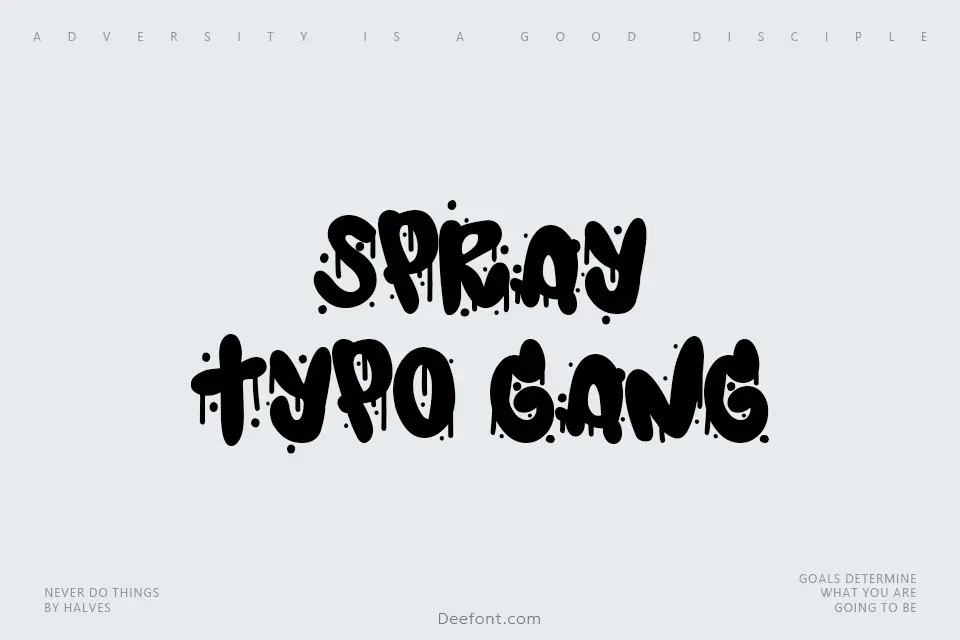
Spray Typo Gang Font
Spray Typo Gang is a bold graffiti display font featuring thick, rounded strokes with paint-drip splatters and blobby edges that deliver an urban street art aesthetic. The typeface shines on event flyers, album covers, skate and streetwear branding, game titles, festival posters, and sticker packs with its inky, freshly-sprayed appearance. With over 240 characters supporting accents and Euro symbols, this dynamic font brings loud attitude to creative projects.